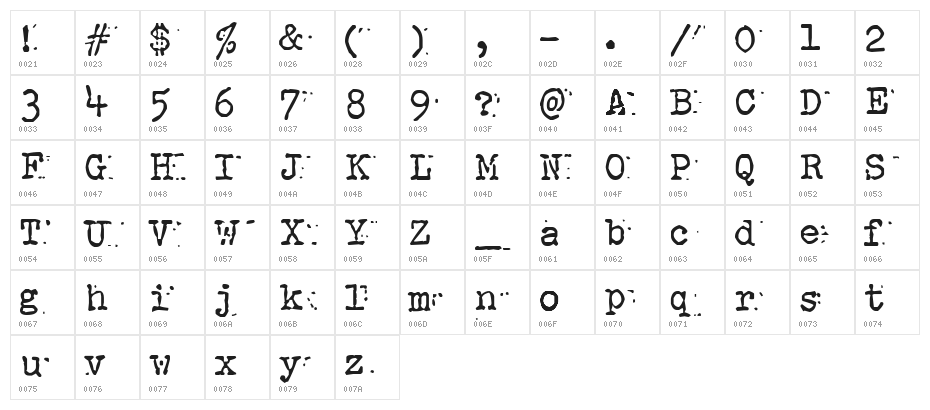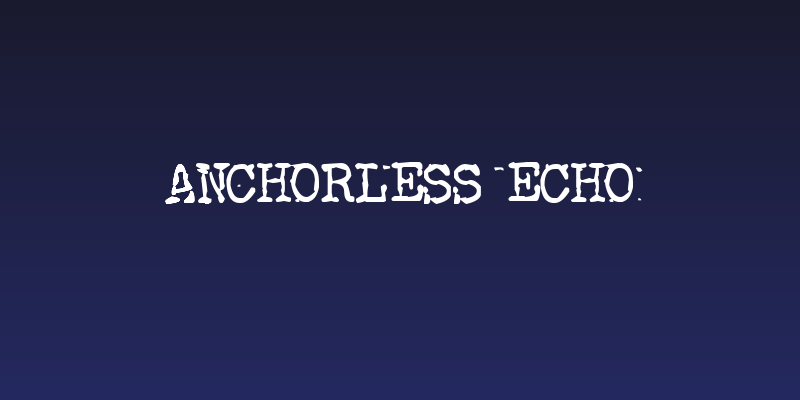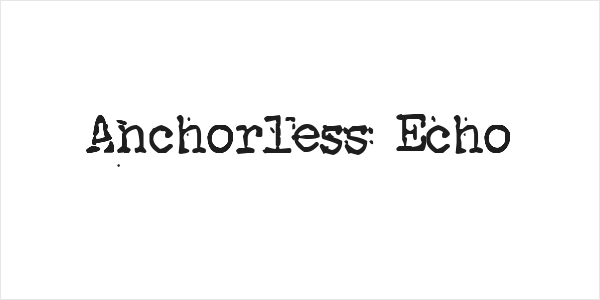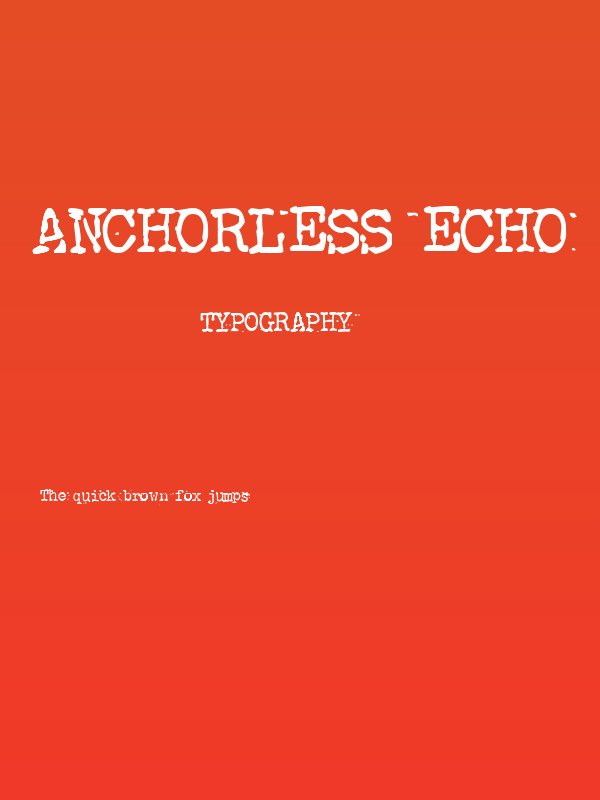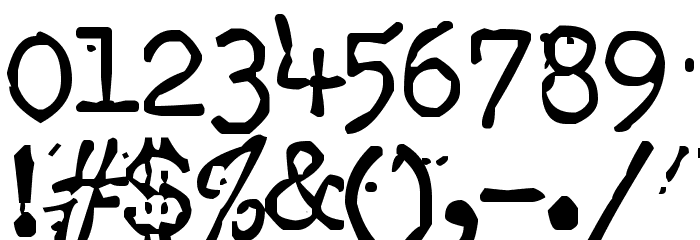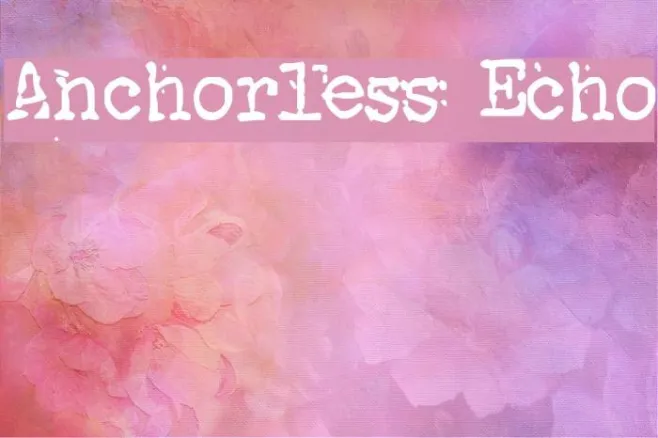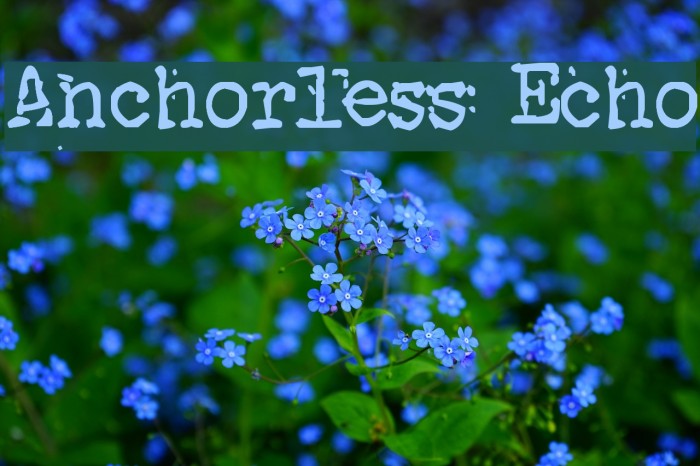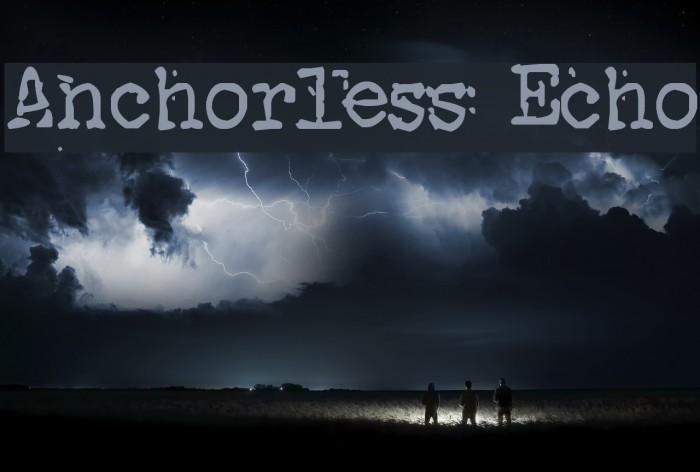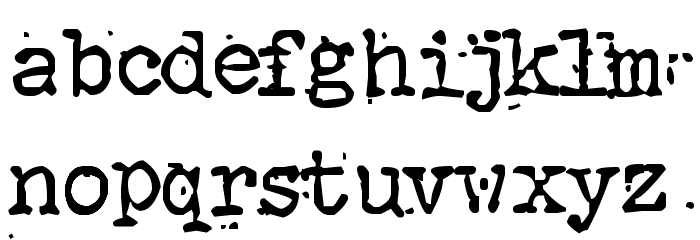
Anchorless Echo Font
Anchorless Echo Description
This font features a distressed, grunge style with irregular edges and a textured appearance. The characters are bold and have a rough, hand-drawn look, giving them a unique and edgy feel. The uppercase and lowercase letters maintain a consistent style, with noticeable variations in stroke width that add to the font's rugged charm. Numbers and special characters follow the same aesthetic, making the font versatile for creative projects. Its distinct, weathered look makes it ideal for designs that require a raw, authentic touch.
| Overall Style | Grunge, Distressed |
| Proposed Projects | Ideal for album covers, posters, branding for edgy products, and any design needing a raw, authentic look. |